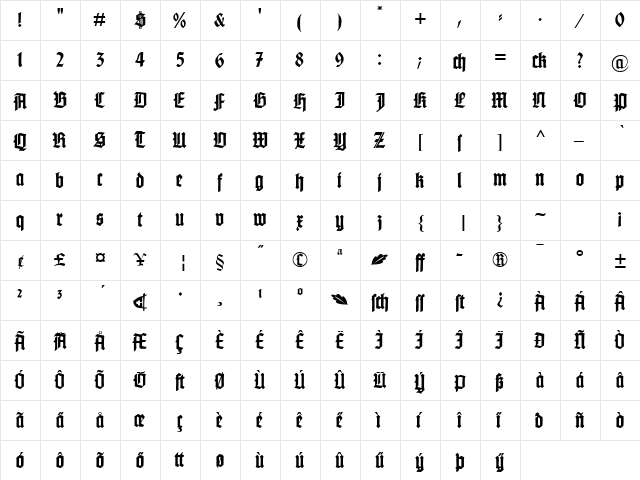
Gotenburg A Bold
| Designer | Dieter Steffmann |
| Copyright | Copyright (c) Typographer Mediengestaltung, 2002. All rights reserved. Zierbuchstaben zur Gotenburg Halbfett (Gotenburg Garnitur A), von Friedrich Heinrichsen, Schriftgiesserei D. Stempel AG, Frankfurt. Digitized and hinted by Dieter Steffmann, Kreuztal. |
Design Context for Gotenburg A Typeface
Gotenburg A takes a measured approach to typography — its balanced proportions and neutral character make it a reliable workhorse for both digital and print work. The heavy weight commands attention and anchors typographic hierarchies.